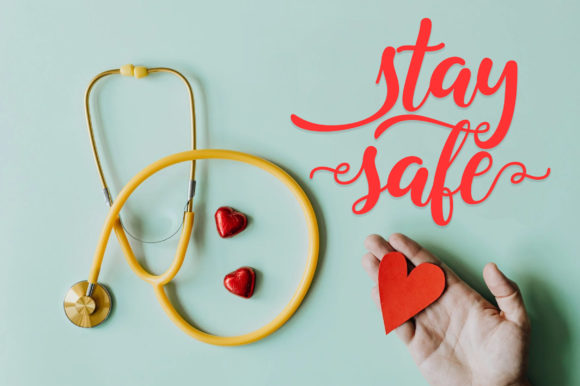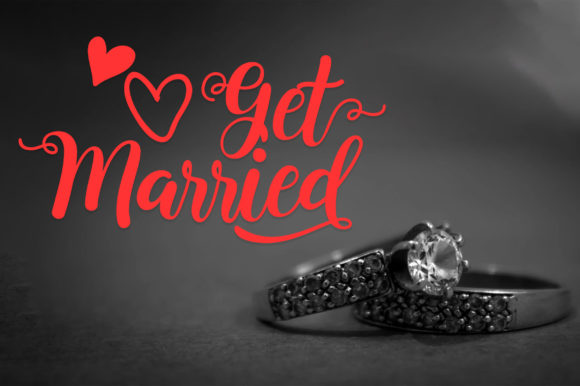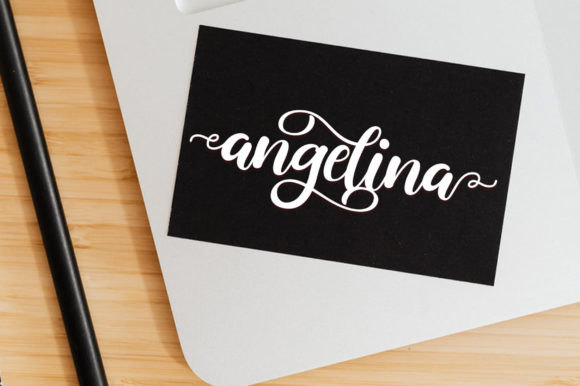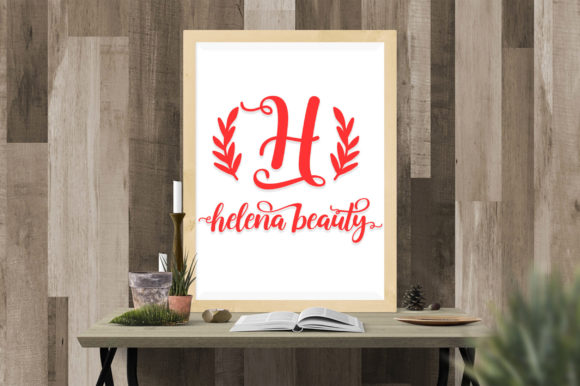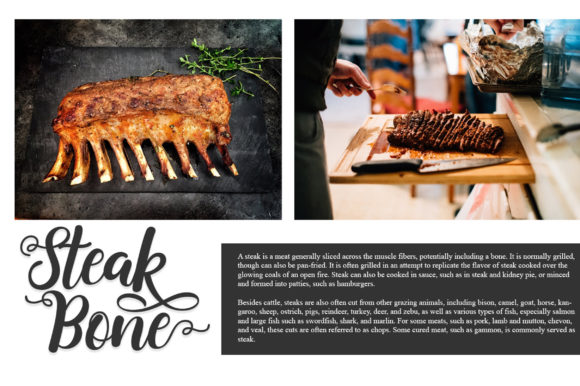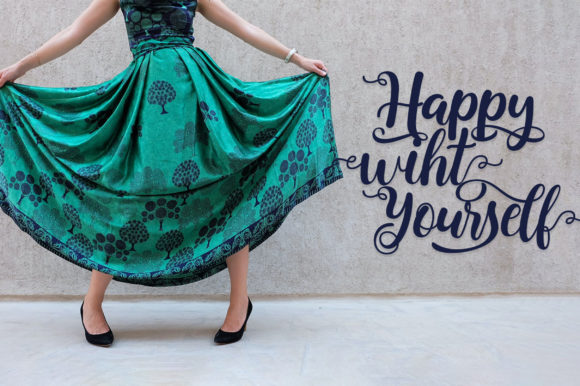
Introduction to Melted Butter Font
Melted Butter is a magical handwritten font carefully created with a touch of elegance.
Key Features of Melted Butter Font